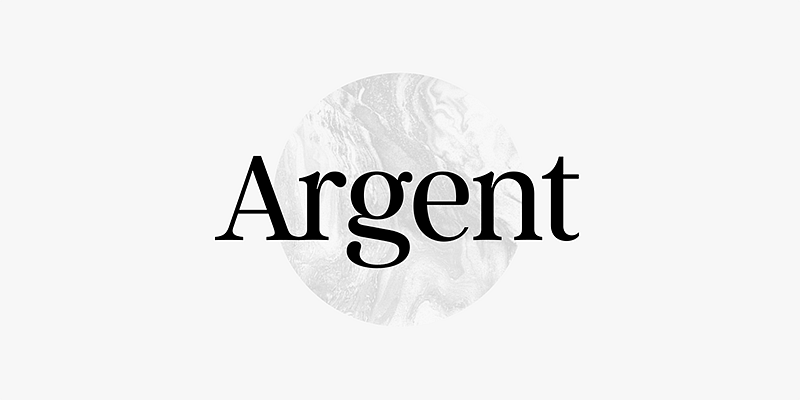
Argent CF Font Free Download is a luxurious and expressive serif typeface that combines timeless elegance with modern flair. Featuring high contrast strokes, smooth curves, and sharp details, this font is perfect for branding, editorial design, fashion campaigns, and premium packaging that needs to stand out with sophistication and style.
Its versatility shines through a wide range of weights and beautifully crafted italics, making it ideal for both striking headlines and refined body text. Compatible with top design tools like Adobe Illustrator, InDesign, Figma, and Canva, Argent CF adapts easily to digital and print environments.